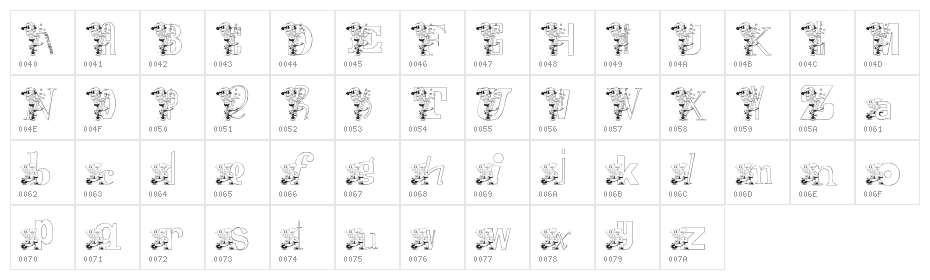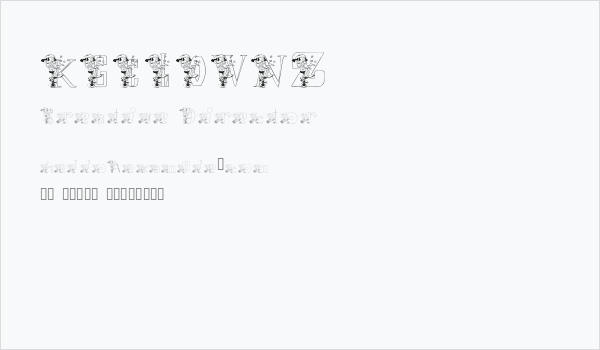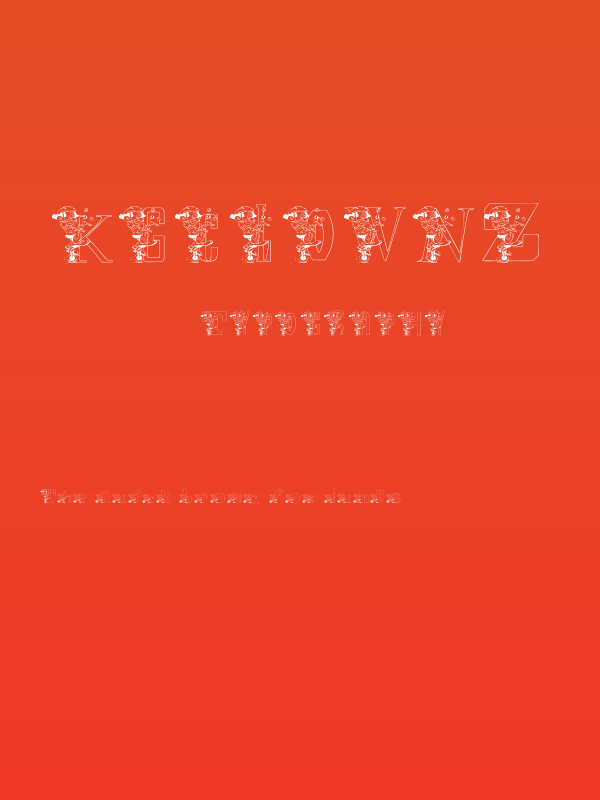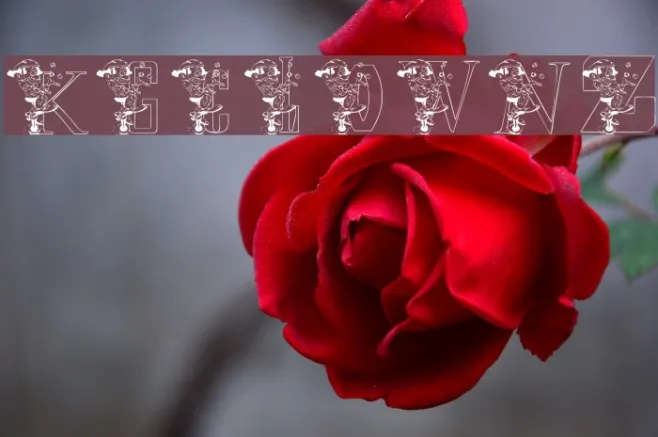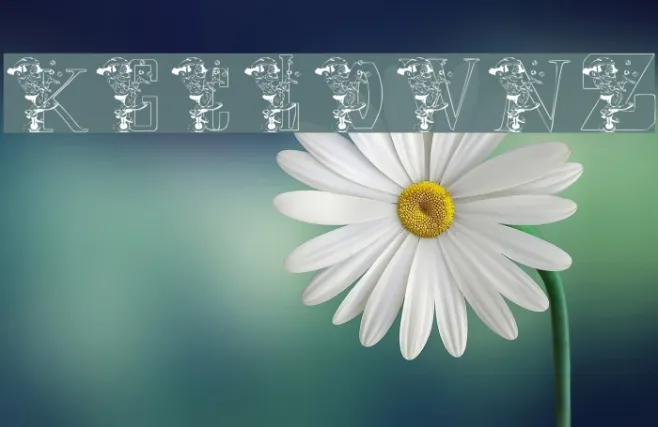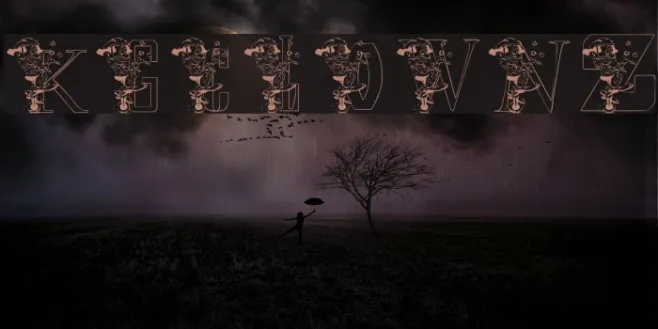
KGCLOWNZ Font
KGCLOWNZ Description
This playful and whimsical font features characters that are creatively integrated with clown illustrations. Each letter is uniquely designed with a clown figure, adding a humorous and entertaining element to the text. The font maintains a consistent outline style, ensuring readability while providing a decorative touch. The characters are bold and eye-catching, making them suitable for projects that require a fun and lively appearance. The font's distinct style is perfect for children's materials, party invitations, or any design that seeks to evoke joy and amusement.
| Proposed Projects | Ideal for children's books, party invitations, circus-themed events, and playful branding. |